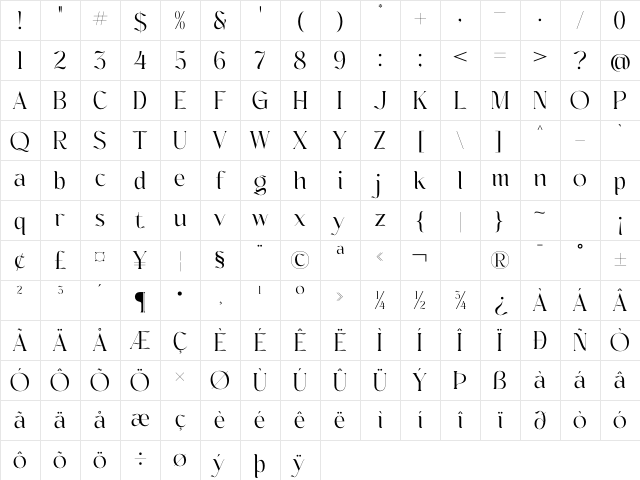
Complete Qelistah Regular glyph index. Displaying only characters natively supported by Qelistah Regular font.
Qelistah is a composed and adaptable typeface that performs quietly and consistently across a wide range of design contexts.